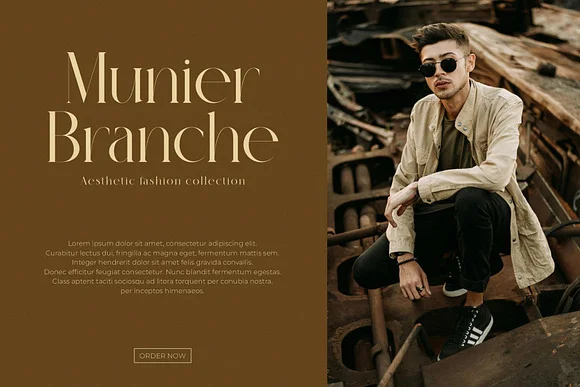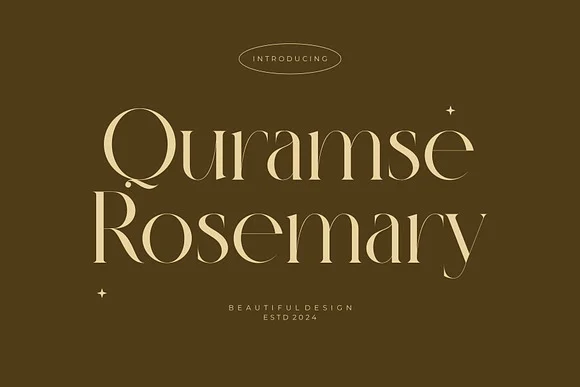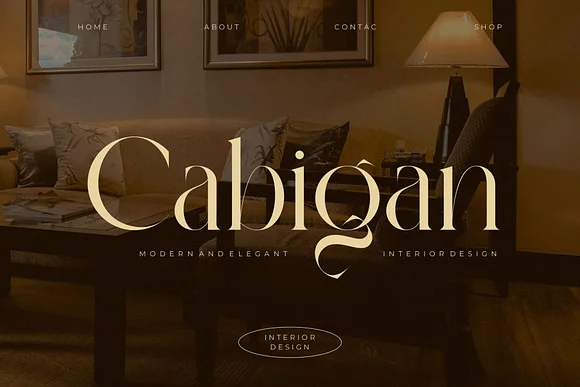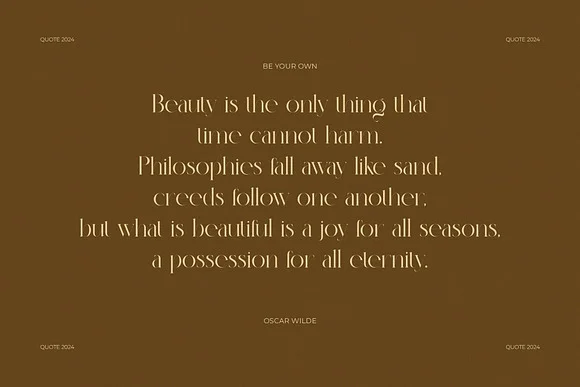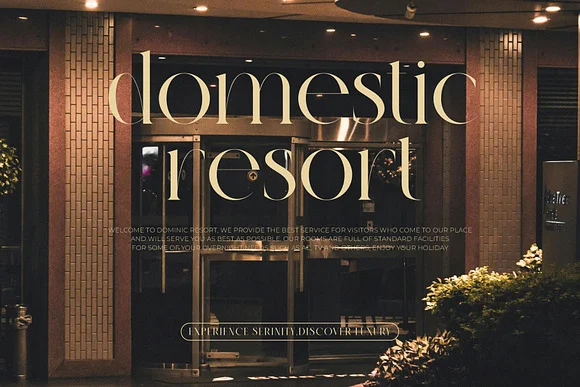
Gulike Elegant Serif Typeface
A good typeface communicates tone before a single word is read. Gulike Elegant Serif Typeface achieves this through consistent type colour across continuous text. The typeface brings a classically grounded sensibility to a broad range of creative disciplines, with distinctive character without sacrificing readability that holds up whether the work is print-first or screen-first.
In practice, Gulike Elegant Serif Typeface proves particularly effective for magazine layouts, environmental graphics, poster creation, law firm materials, university press publications. Designers reaching for it find that the type decisions feel resolved rather than laboured — a useful quality when client timelines are tight.
Each character has been drawn with bracketed serifs and subtle optical corrections that prevent overshoot at display sizes. The contrast ratio between thick and thin strokes guarantees legibility in both print and high-resolution digital contexts.
The range of applications extends to classical music programmes, logo design, corporate identity, newspaper headlines. That breadth is deliberate: the proportions and spacing were stress-tested across a wide range of mock briefs before the typeface was finalised.
Art directors commissioning type-led campaigns find Gulike Elegant Serif Typeface a reliable choice for projects that demand both personality and restraint. The design avoids the self-conscious quirkiness that dates quickly, settling instead for considered distinctiveness that holds up over time.